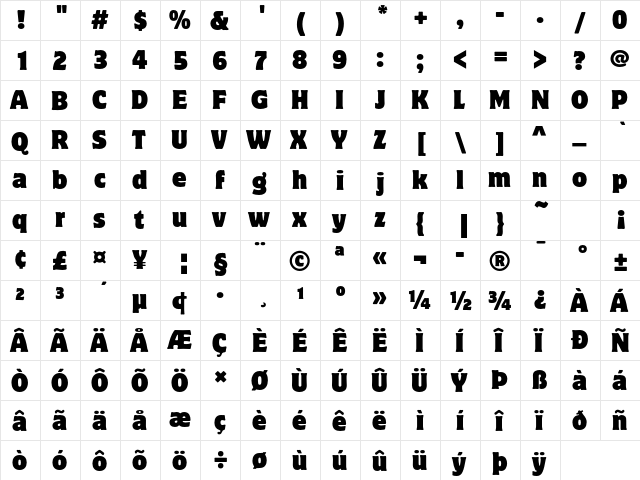
Motter Corpus Std SemiCondensed
| Designer | Othmar Motter |
Design Context for Motter Corpus Std Typeface
Motter Corpus Std offers clean, dependable letterforms without strong stylistic allegiance, making it a practical choice for designers who need flexibility. Its narrow stance lets it pack a punch even in space-constrained designs.